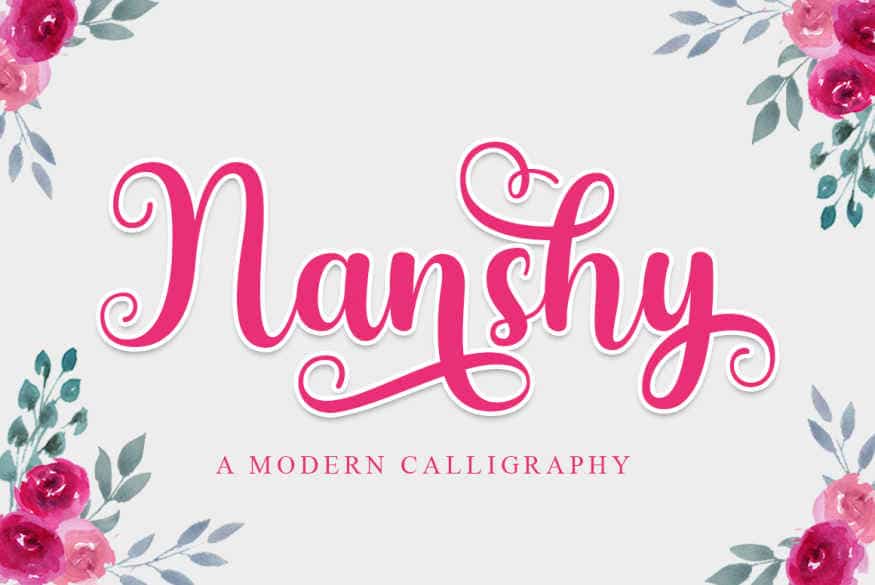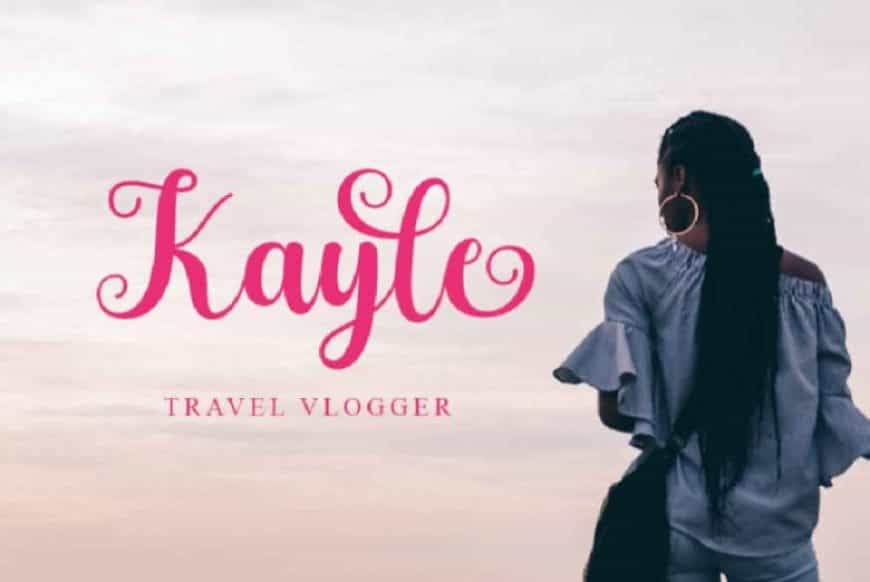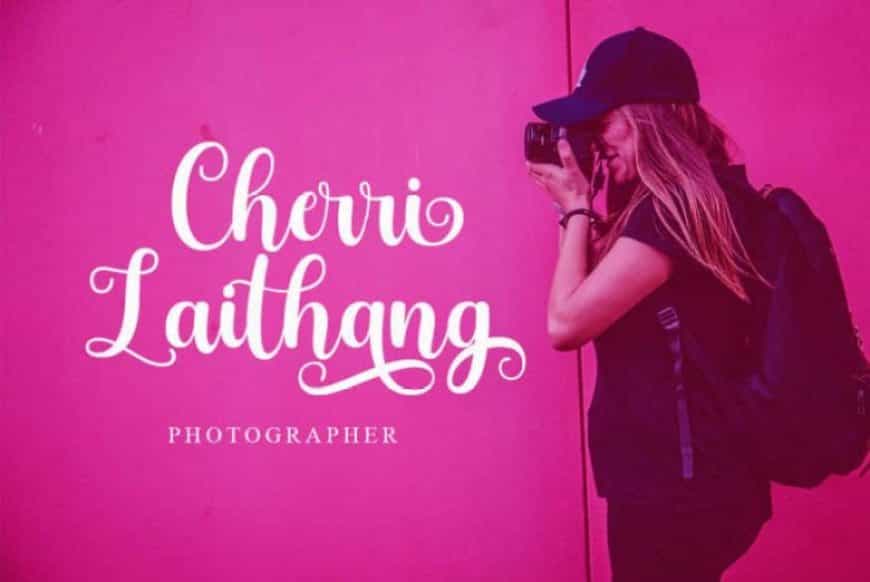
Discover Nanshy Modern Calligraphy Font, part of the Calligraphy collection—a versatile and unique font perfect for adding a personal touch to your projects. Download it for free and enjoy crafting designs with style, from invitations to social media posts. This font is available exclusively for personal use, giving you the freedom to create without limits. Unlock your creativity with Nanshy Modern Calligraphy Font today!
Nanshy is an elegant calligraphy font. Discover the real essence of it and use it to make your own beautiful wedding invitations, stationary art, social media posts that will attract attention and cute greeting cards.